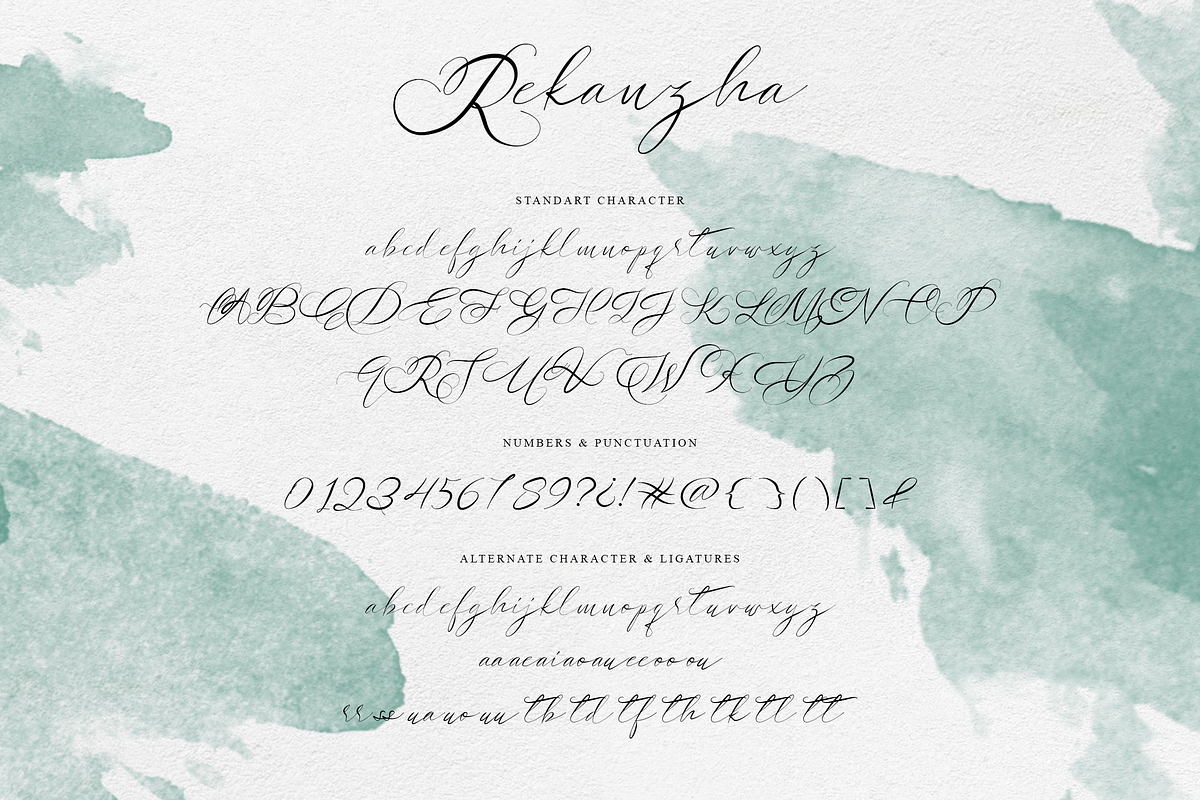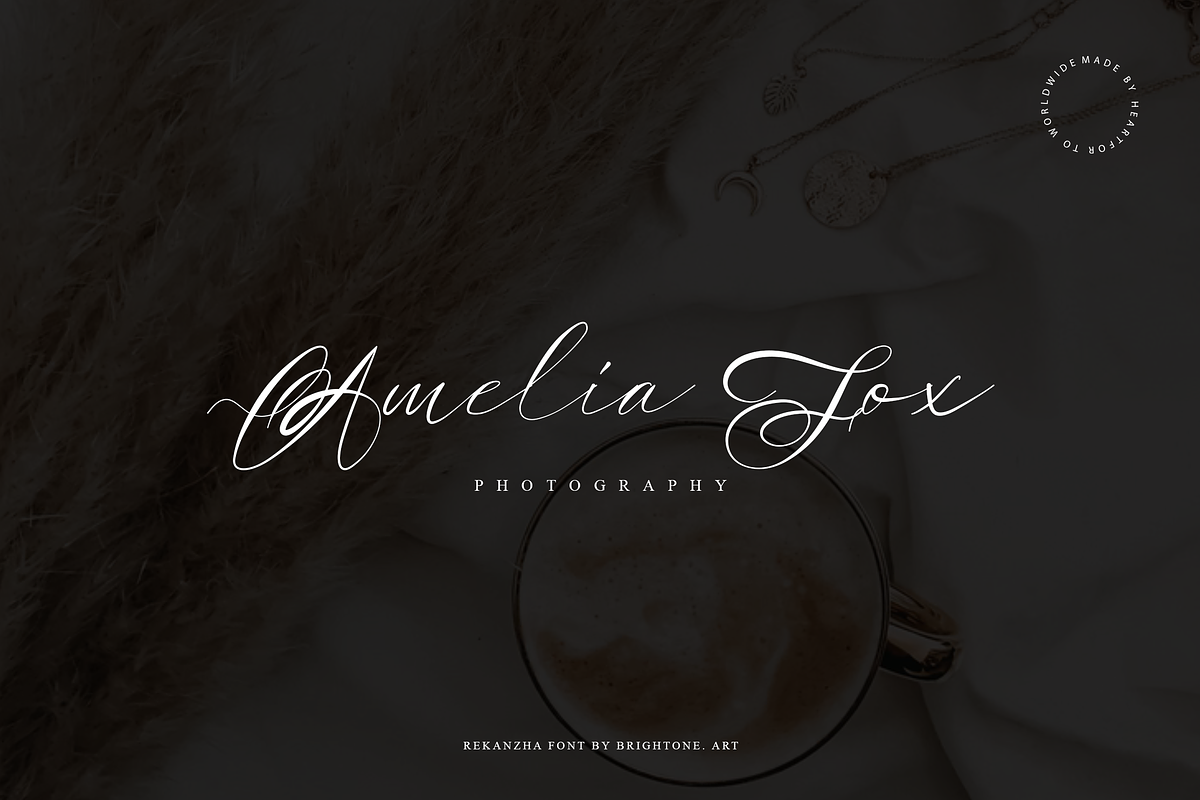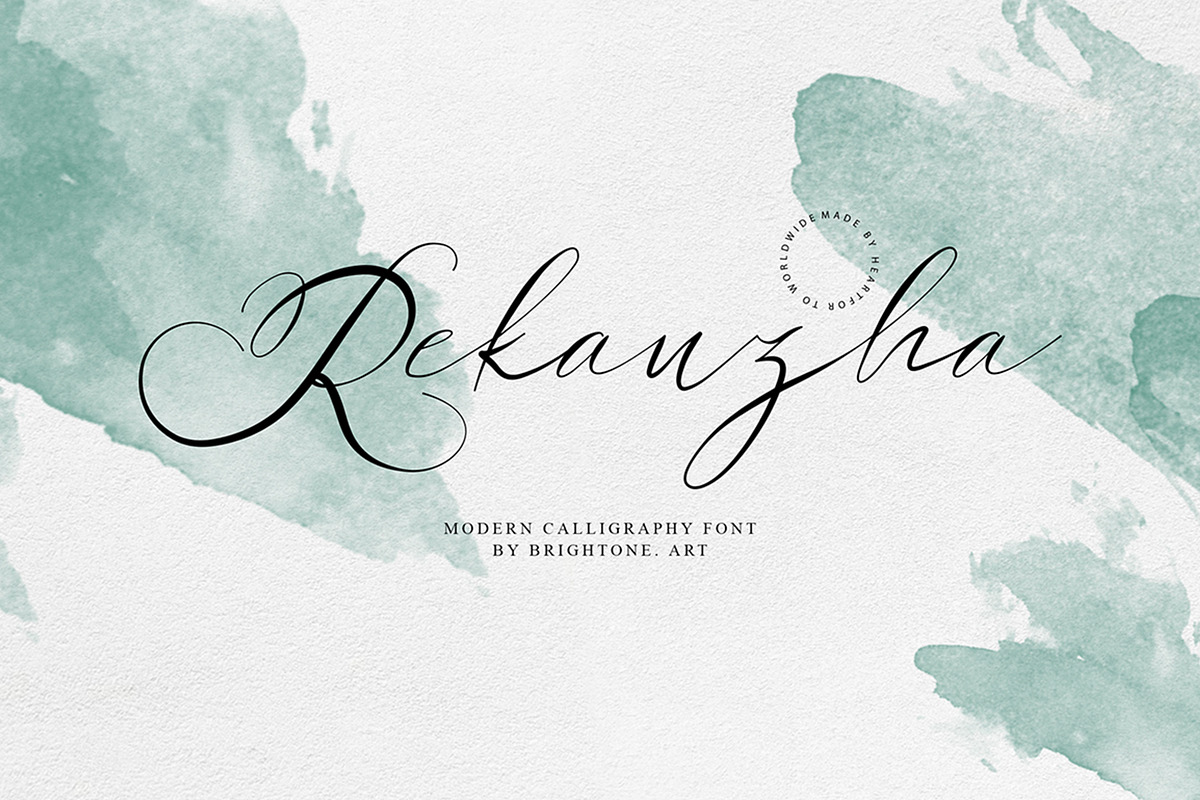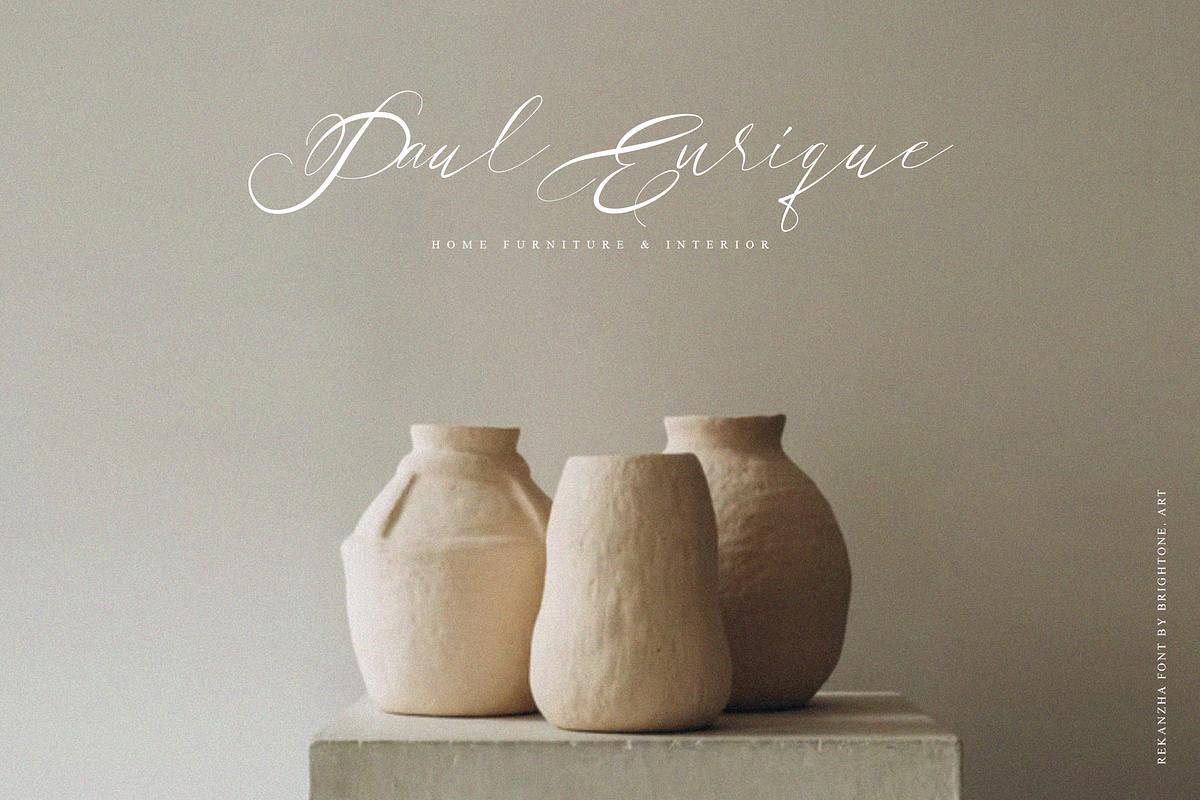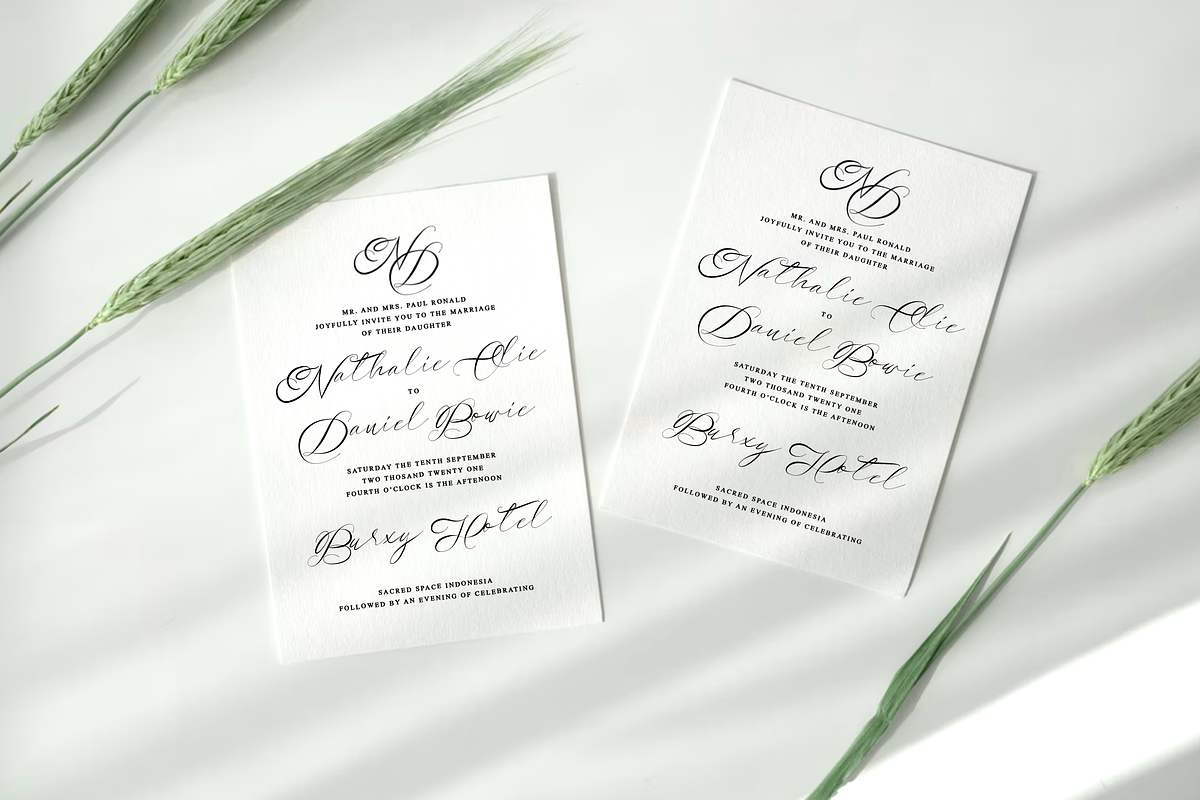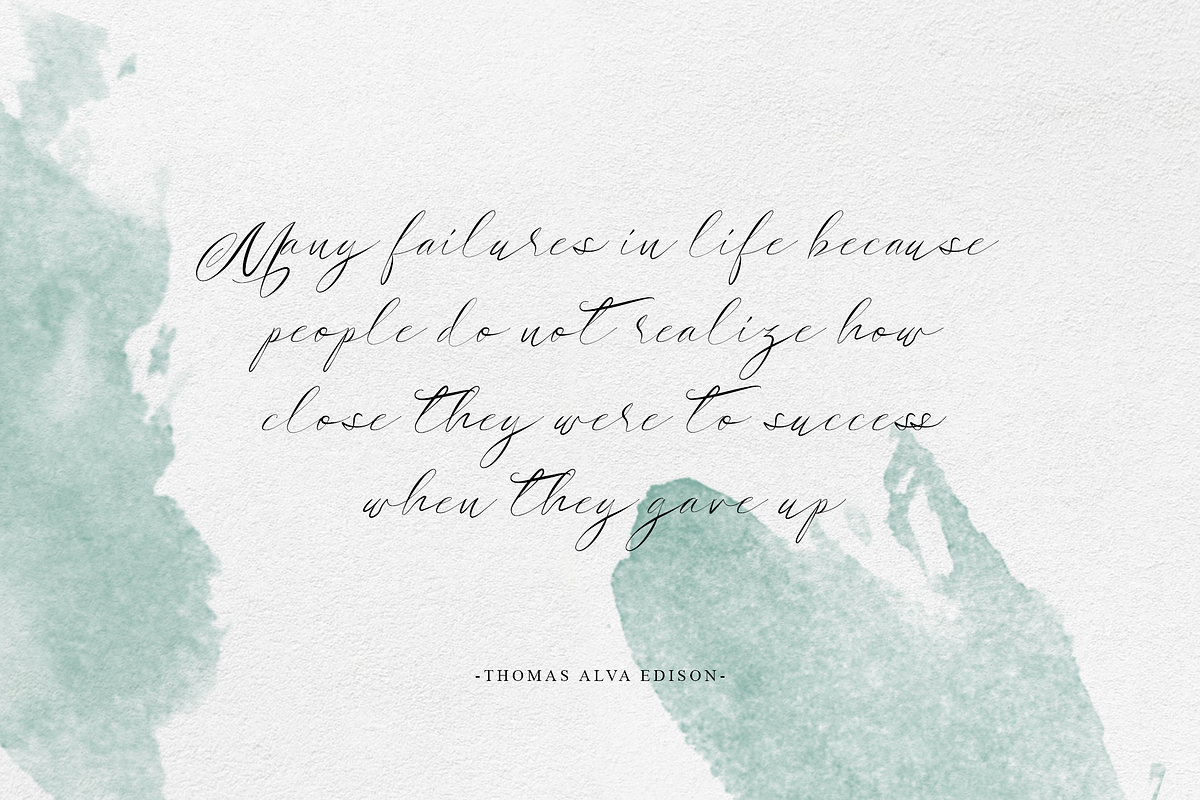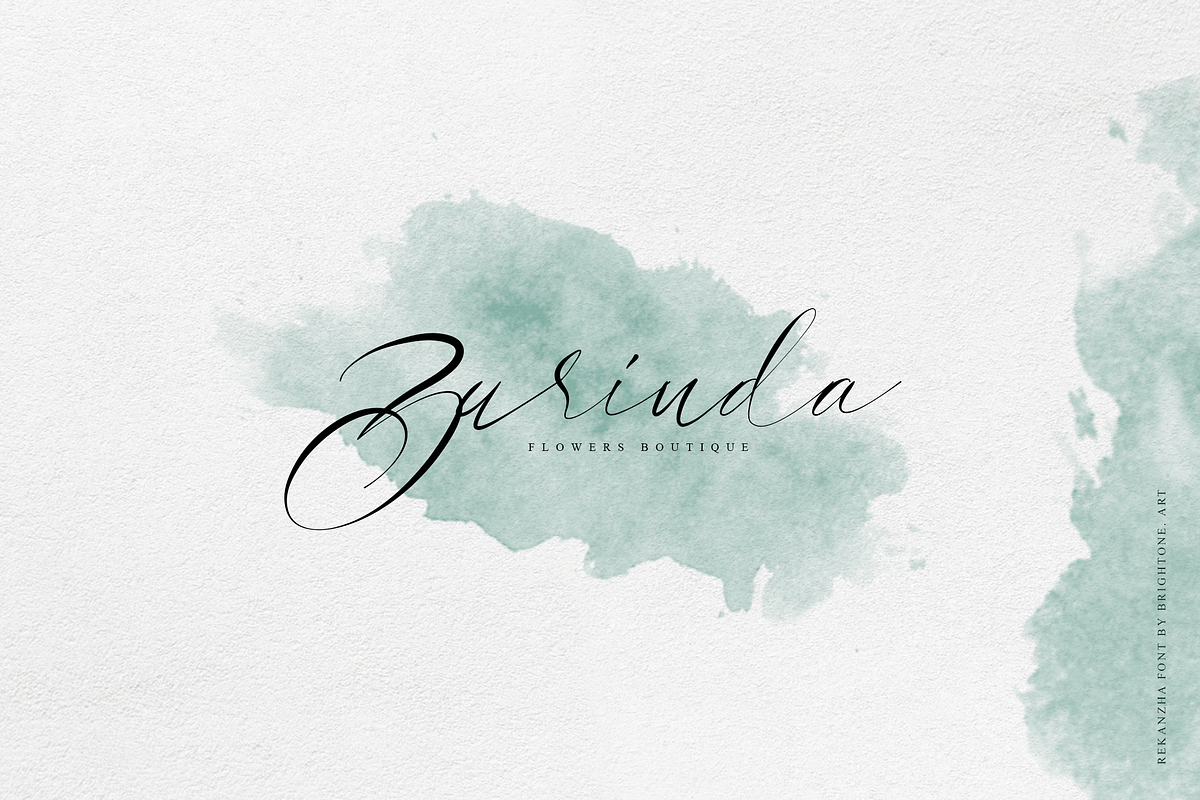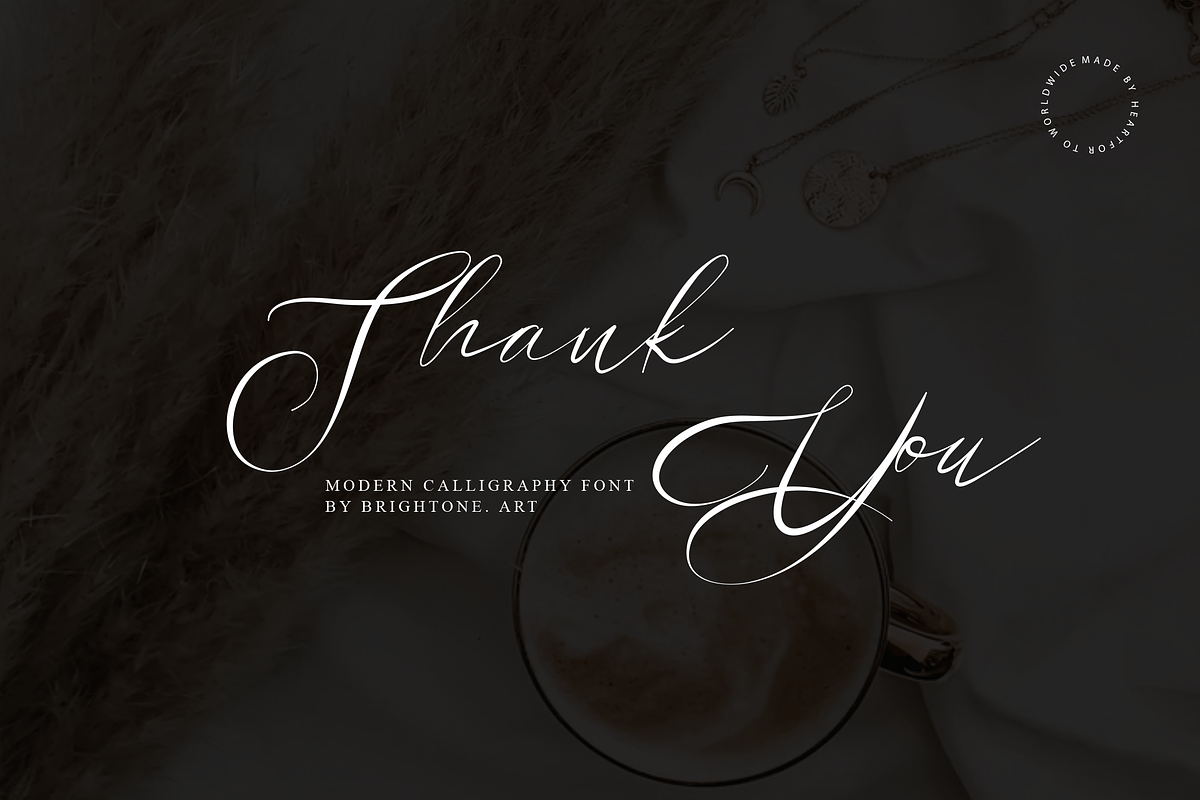
Rekanzha - Handwritten style
Rekanzha is Handwritten font includes uppercase, lowercase, punctuation, numbers, support multilingual, and good ligatures. This font will be good use to branding your brand, tshirt design, lettering design, logo, or looks great when combined with your product for instagram post, instagram story or label for your product.